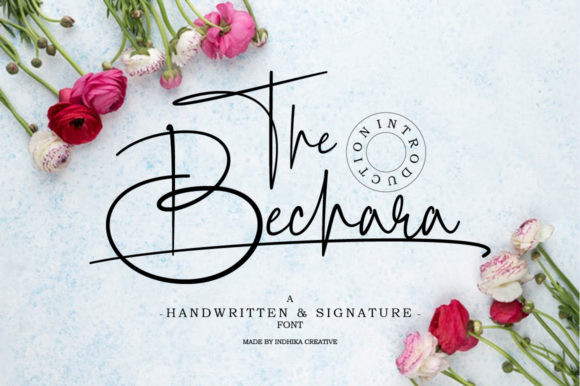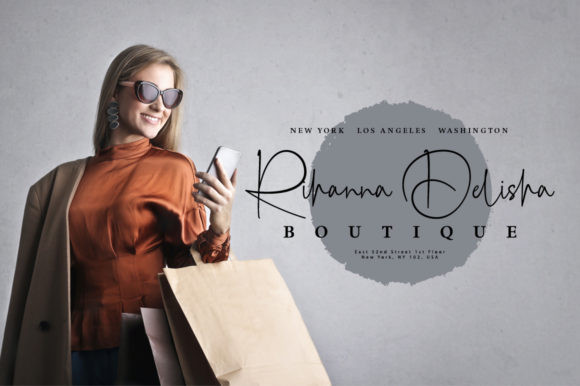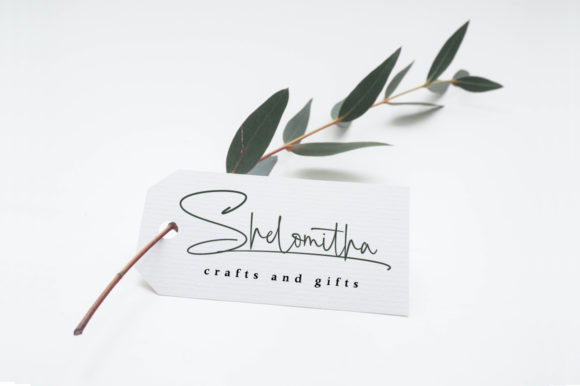
The Bechara Font
The Bechara is a thin and elegant handwritten font. Use this font for any crafting project that requires a personalized look!
This font is PUA encoded which means you can access all of the glyphs and swashes with ease!